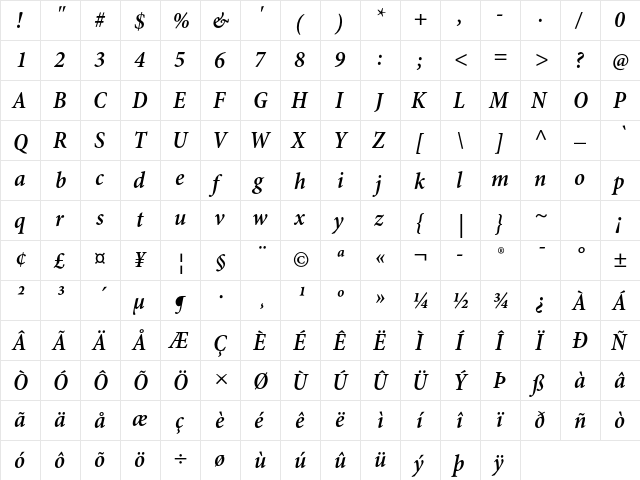
Minion Pro Semibold Cond Italic Font Preview
| Designer | Robert Slimbach |
Design Context for Minion Pro Typeface
Minion Pro takes a measured approach to typography — its balanced proportions and neutral character make it a reliable workhorse for both digital and print work. Its italic angle brings a sense of urgency and motion to the letterforms. The heavy weight commands attention and anchors typographic hierarchies. Its narrow stance lets it pack a punch even in space-constrained designs.
Pro Tip: Use Minion Pro for emphasis, pull quotes, and subheadings where its slanted energy can add rhythm to the layout.